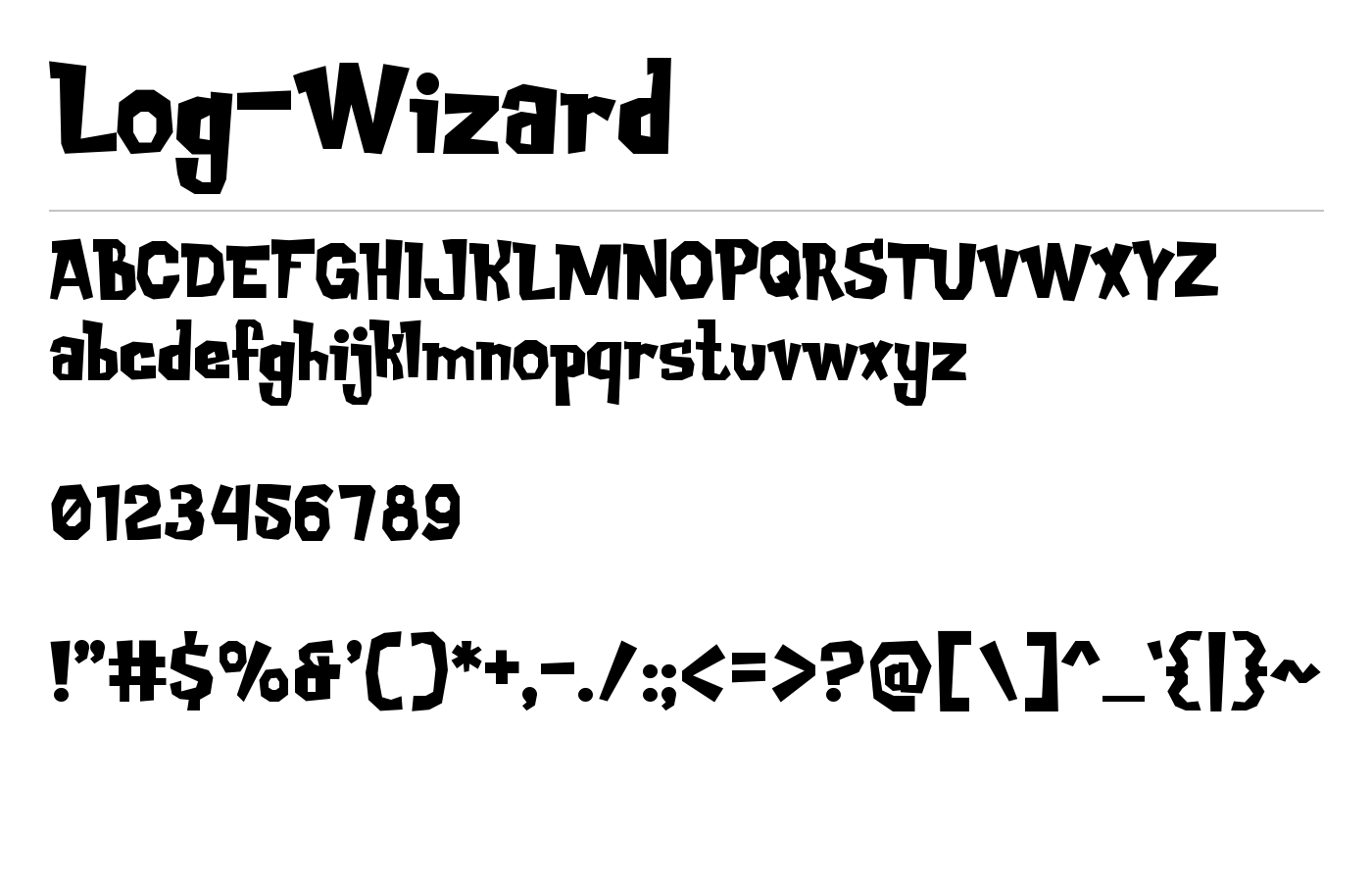
Log Wizard is a bold, playful sans serif font with an irregular, hand-cut style that gives it a quirky and adventurous personality. Its strong, chunky letterforms with uneven edges and a slightly condensed width make it perfect for creative logos, posters, and fun-focused branding where a unique, energetic vibe is desired. This font’s distinctive character adds a sense of whimsy and originality, making it especially suitable for entertainment, gaming, or children’s projects.
Log Wizard Font
About Log Wizard Font